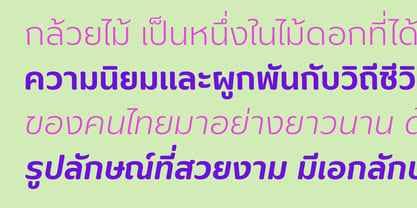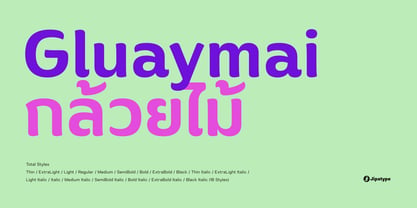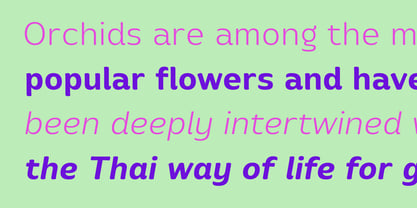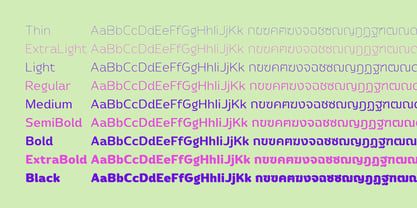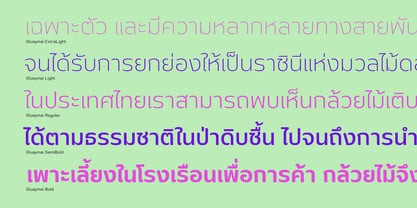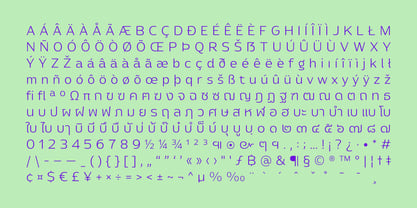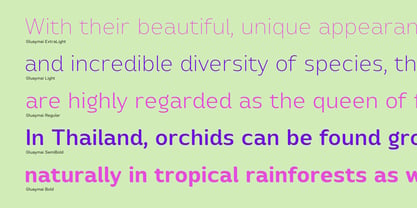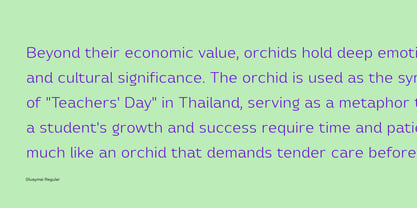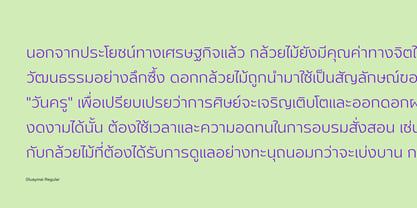
Gluaymai
by Jipatype
The Gluaymai Font Family was designed by Anupap Jaichumnan and published by Jipatype. Gluaymai contains 8 styles. More about this family
Gluaymai is a clean, modern sans-serif font family that seamlessly supports both Latin and Thai scripts. The typeface features smooth geometric curves and a contemporary loopless Thai design, offering great legibility and a friendly appearance across its 18 styles ranging from Thin to Black with matching italics. Thanks to its balanced proportions and wide range of weights, Gluaymai is highly versatile and perfectly suited for multi-language branding, corporate identity and editorial body text.
Designers: Anupap Jaichumnan
Foundry: Jipatype
Jipatype is a type foundry founded and operated solely by Anupap Jaichamnarn, based in Bangkok, Thailand. Officially established in 2022, the foundry's journey began in 2019. The name "Jipatype" is derived from the Thai word “Jipatha” (จิปาถะ), meaning "miscellaneous" or "variety." This name reflects the diverse design concepts and influences that shape Jipatype’s versatile font collections.